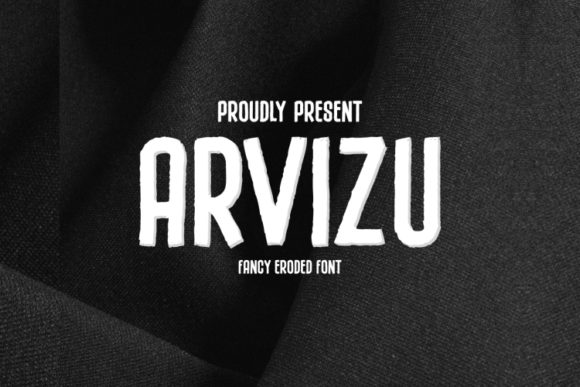
In the realm of typography, where letters dance and words take captivating forms, allow us to introduce you to Arvizu, a grungy font that's as unique as it is attention-grabbing. Its bold uppercase letters, adorned with captivating white patches, create a striking visual impact that will make your text headlines and advertisements pop.
Arvizu is more than just a font; it's an experience. Its rugged charm adds an authentic touch to your designs, evoking a sense of nostalgia and intrigue. As you explore the versatile alternates and standard characters, you'll discover endless possibilities to express your creativity and make a lasting impression.
With Arvizu, your words will command attention, leaving a lasting impression on your audience. It's perfect for creating eye-catching logos, impactful posters, and captivating social media graphics. Its versatile nature makes it suitable for a wide range of projects, from vintage-inspired designs to modern, edgy layouts.
Step into the world of Arvizu and let your imagination run wild. Its unique textures and striking appearance will elevate your designs to new heights, leaving your audience captivated and eager for more. Download Arvizu today and unleash the power of typography.